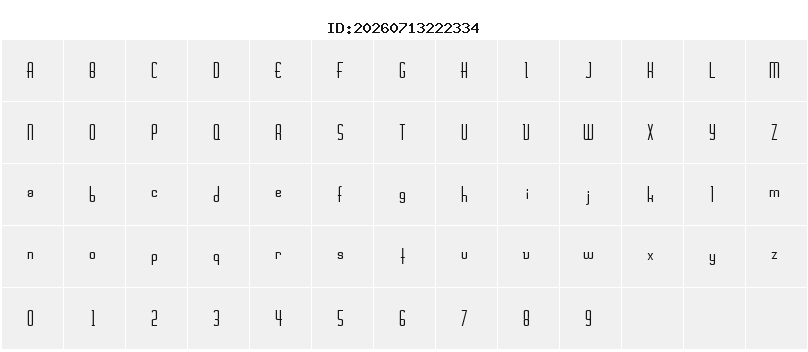
• Font Name: Calamaro-Bold
• Full Font Name: Calamaro-Bold Bold
About Calamaro-Bold.ttf
Calamaro-Bold.ttf is a modern, elegant sans-serif font designed for ultimate readability and visual harmony. Perfect for branding, headlines, web design, and print materials.